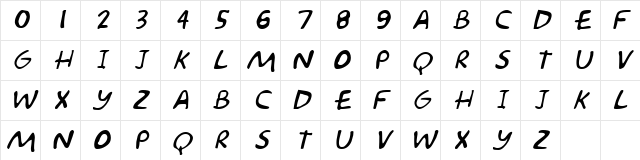
Complete ImprestCaps Oblique glyph index. Displaying only characters natively supported by ImprestCaps Oblique font.
ImprestCaps is a composed and adaptable typeface that performs quietly and consistently across a wide range of design contexts. The slanted form adds forward momentum and visual energy.
Pro Tip: Use ImprestCaps for emphasis, pull quotes, and subheadings where its slanted energy can add rhythm to the layout.